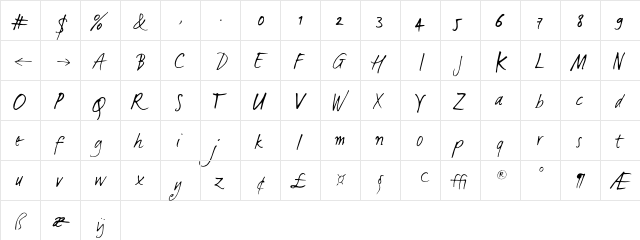
LucasHandFeetLight Regular Font Preview
LucasHandFeetLight Regular
Design Context for LucasHandFeetLight Typeface
LucasHandFeetLight brings a calligraphic fluidity to the page — its connecting strokes and expressive curves give it an unmistakably human quality. The delicate stroke weight brings airiness and refinement to layouts.
Font Pairing: Combine LucasHandFeetLight with a simple geometric sans for maximum contrast — the tension between flowing curves and clean structure is a classic typographic pairing.
Pro Tip: Use LucasHandFeetLight for short runs of text — names, titles, or taglines. Extended body copy in script faces tires the eye quickly.